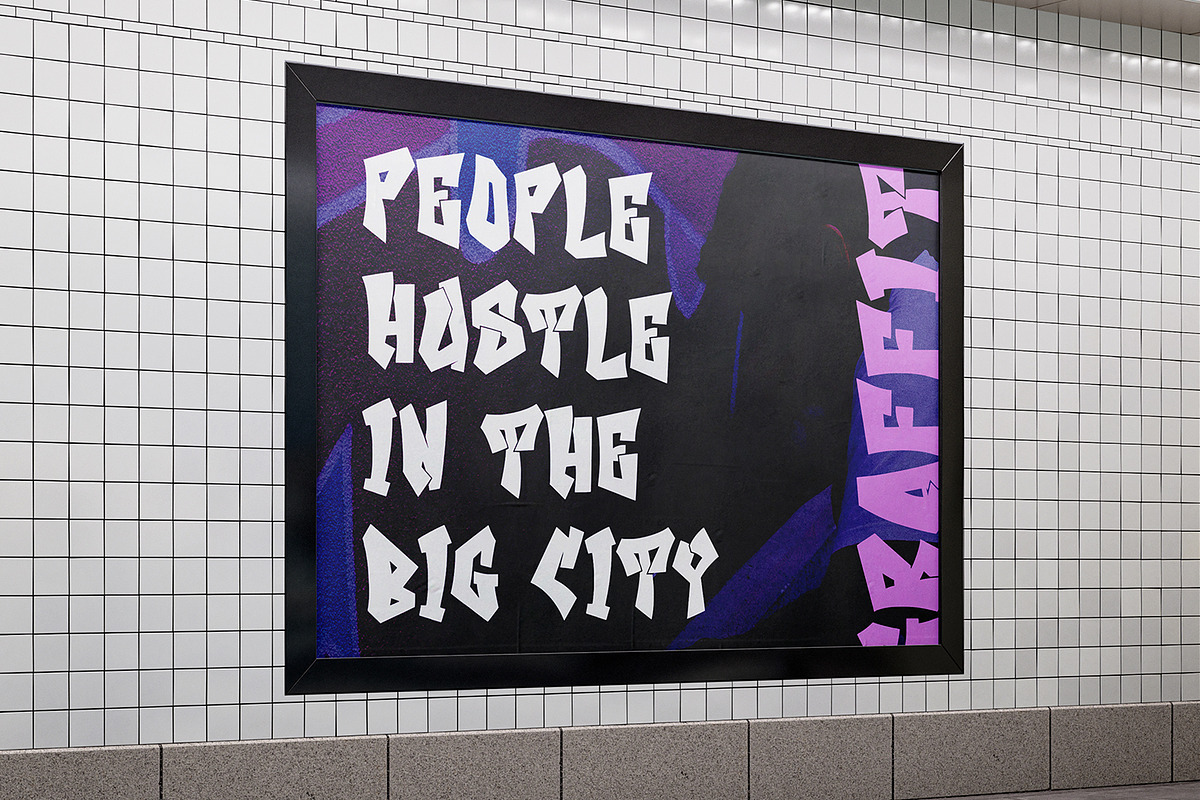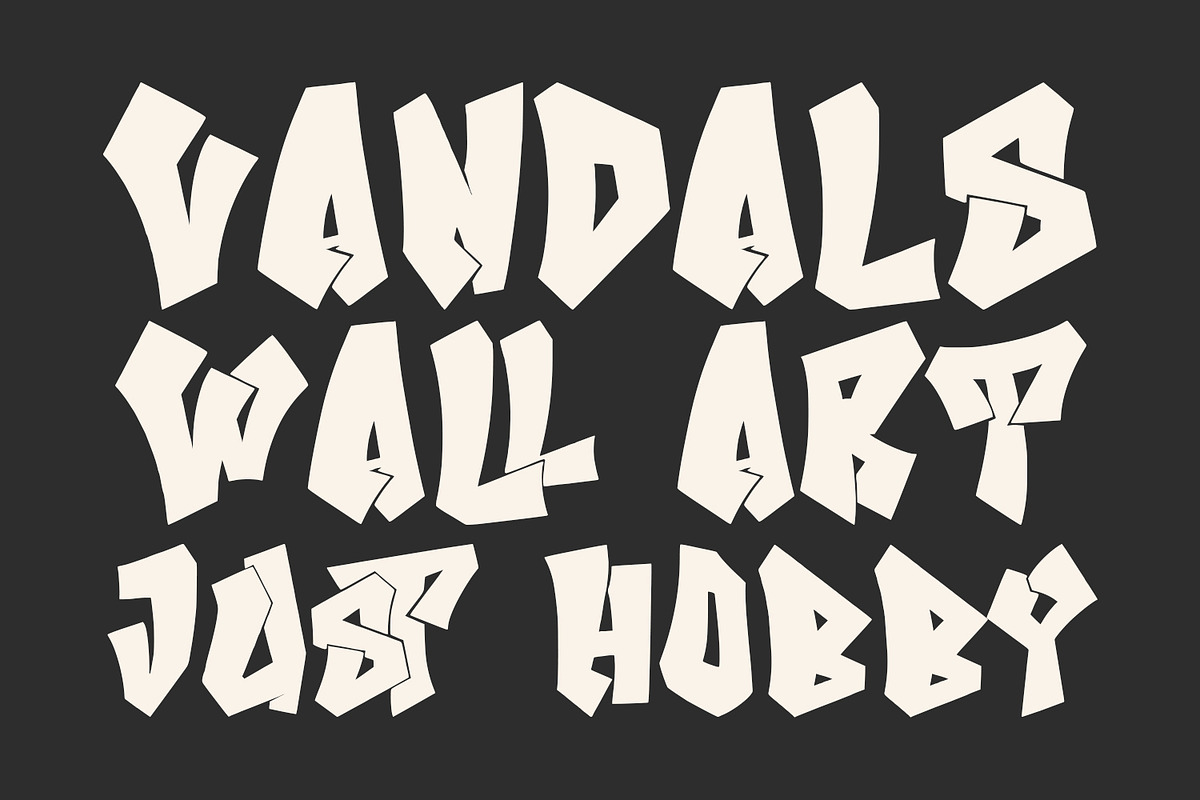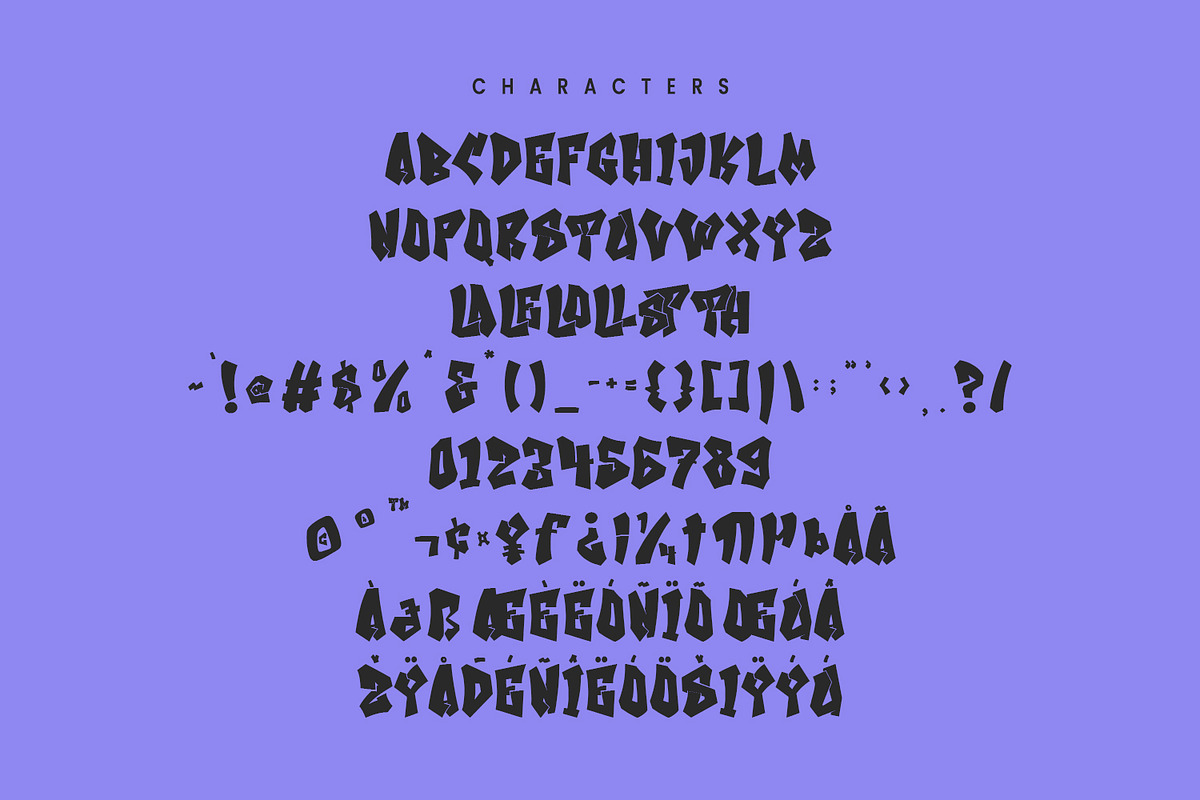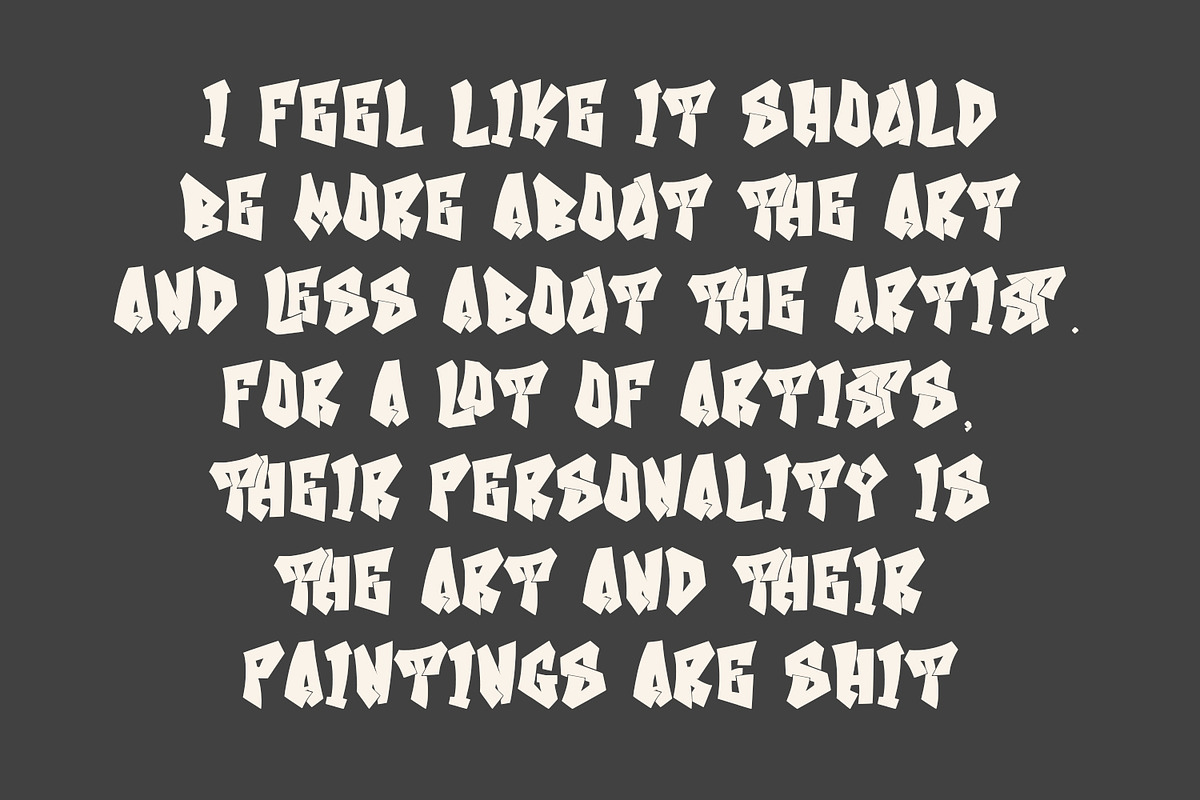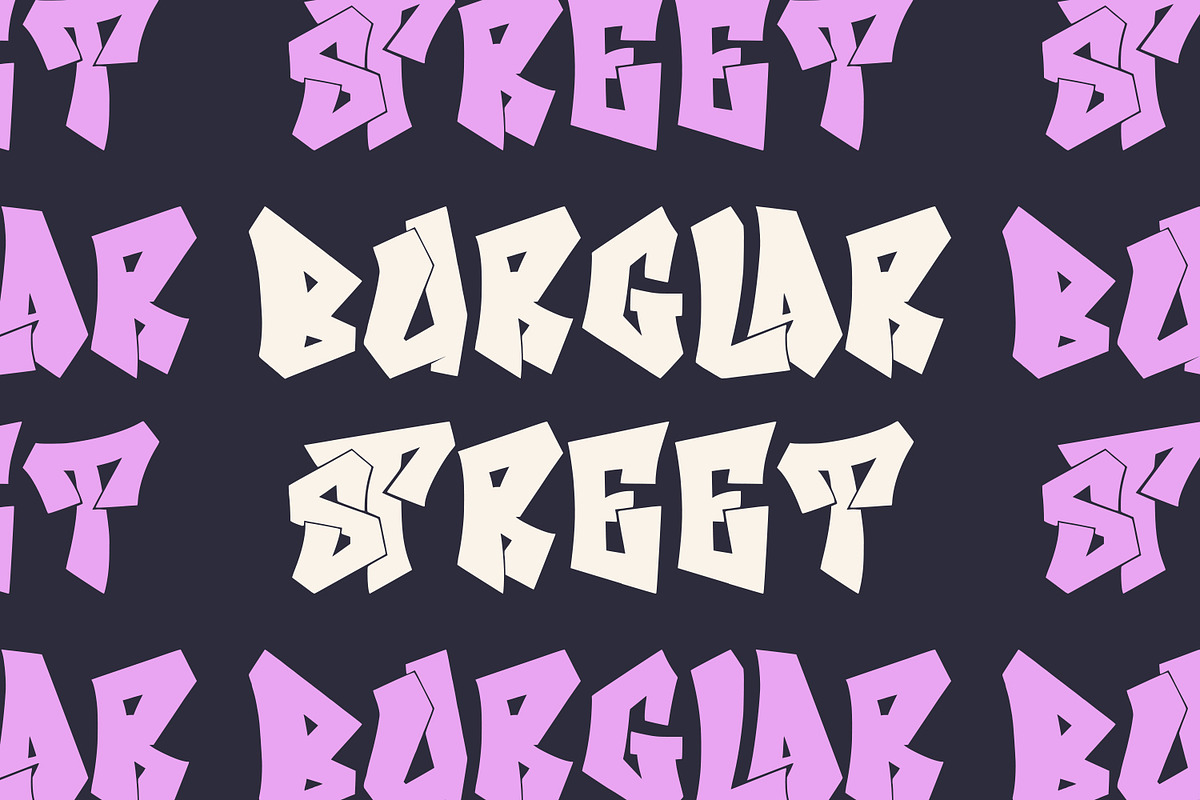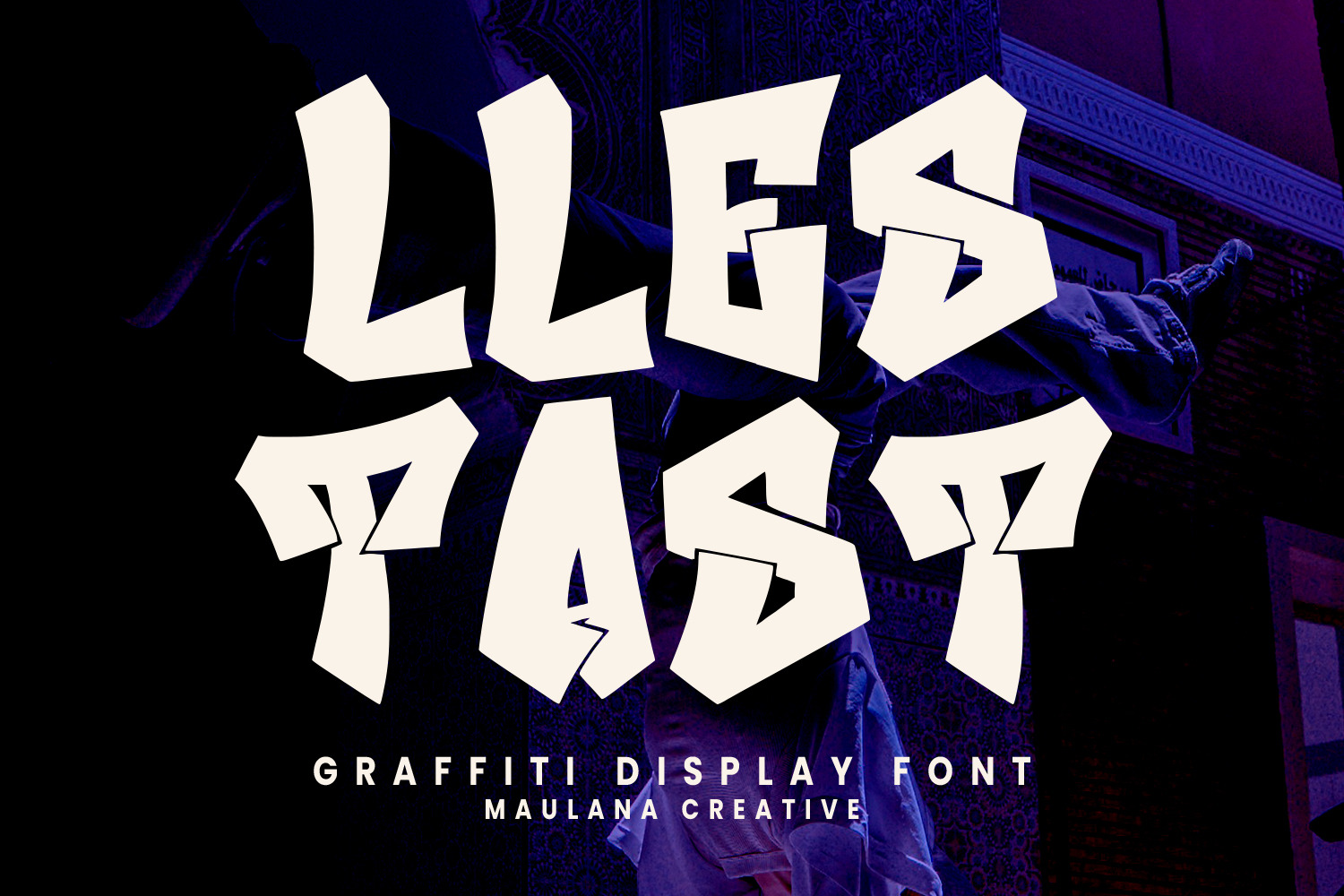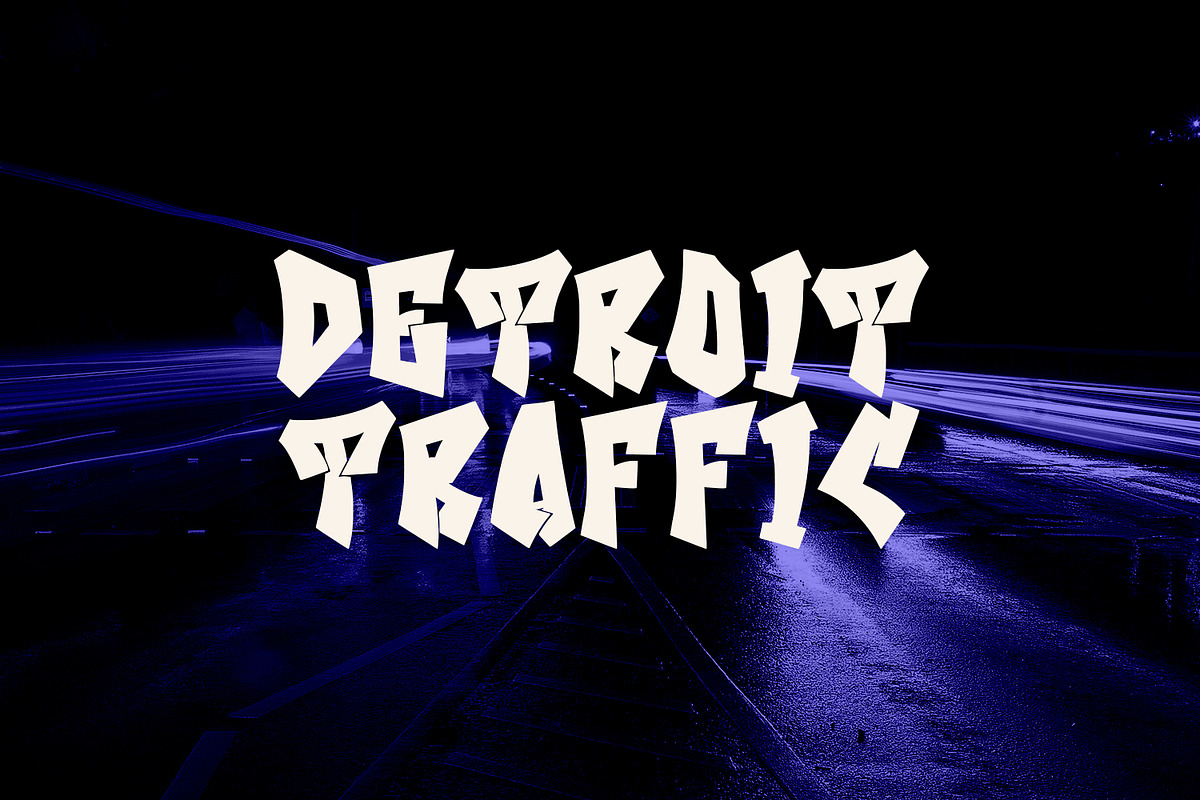
Llestast Graffiti Display Font
Llestast is a graffiti display handwritten font. With bold stroke, fun character with a bit of ligatures. To give you an extra creative work. Llestast font support multilingual more than 100+ language. This font is good for logo design, Social media, Movie Titles, Books Titles, a short text even a long text letter and good for your secondary text font with sans or serif. Make a stunning work with Llestast font.